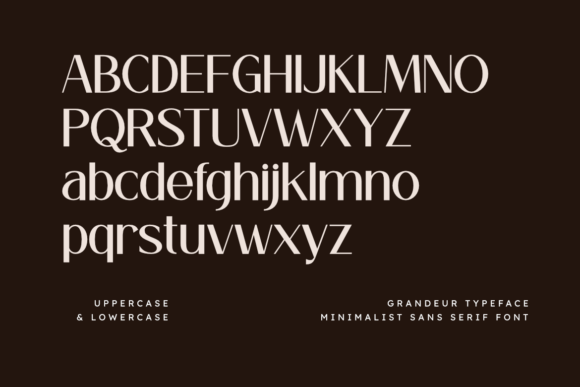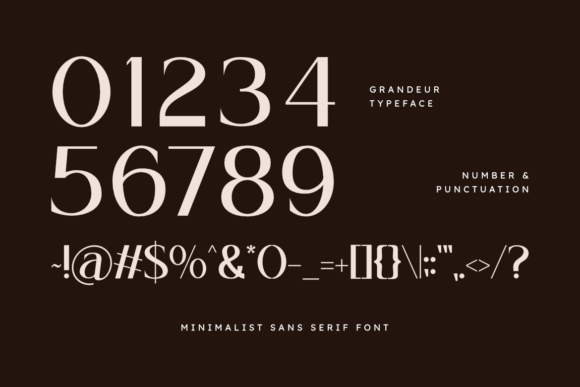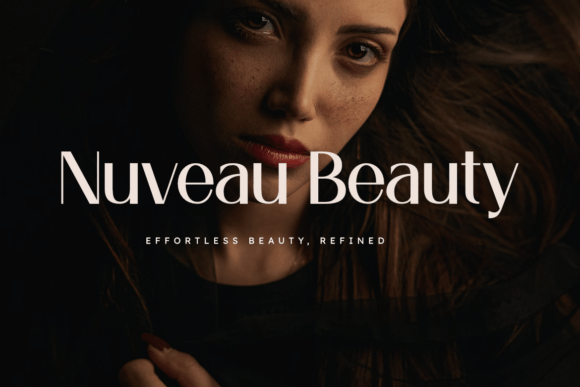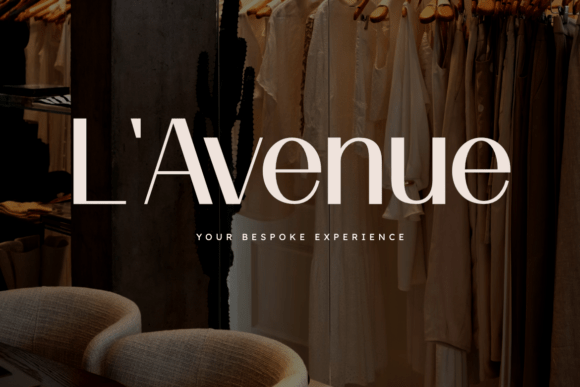
Grandeur Font
Grandeur is a bold and powerful minimalist sans serif font designed for high-impact and precise typography. With its refined solid structure and clean, elegant lines, this font is perfect for strong headlines, professional luxury branding, fashion logos, and high-impact digital posters. Its confident and balanced design gives your visuals a striking, professional, and sophisticated look. Provided in OTF and TTF formats for maximum compatibility across all design platforms.